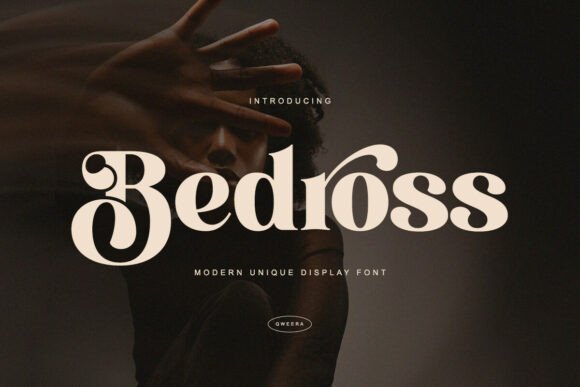
The Perfect Blend of Elegance and Edge: Unleashing the Power of Bedross Font
Remember that moment when you’re working on a design project, and you’re struggling to find the perfect font that captures the essence of your vision? You scroll through countless options, but nothing seems to stand out. Then, you stumble upon a font that makes your heart skip a beat – and that’s exactly what happens when you discover the Bedross Font.
This bold and artistic display font is more than just a pretty face; it’s a game-changer for designers who demand attention-grabbing typography. With its unique blend of modern sophistication and high-fashion flair, Bedross Font is perfect for editorials, brand identities, album covers, and luxury logos. Its versatility lies in its balance of classic serif roots and creative contemporary detailing, making it a valuable addition to any designer’s toolkit.
Whether you’re working on digital or print media, the Bedross Font is ready to elevate your designs with its striking, sculptural presence. With a full set of uppercase, lowercase, punctuation, and symbols, you’ll have everything you need to create stunning designs that leave a lasting impression.
Designer Review: Bedross Font
When I first laid eyes on the Bedross font, I was immediately drawn to its unique, elegant aesthetic ✨. The font’s intricate details and ornate flourishes evoke a sense of luxury and sophistication, making it perfect for high-end branding, fashion, and luxury goods.
- The Bedross font is incredibly versatile, suitable for both digital and print applications.
- It’s highly legible, even at smaller font sizes, making it perfect for body text.
- The font’s unique style allows it to stand out in a crowded market, making it an excellent choice for brands looking to establish a strong identity.
However, as with any font, there are some limitations to consider ⚠️:
- The Bedross font may not be suitable for everyday use, as its intricate details can be overwhelming in large quantities.
- The font’s ornate style can make it difficult to read at very small font sizes.
- Some users may find the font’s unique style too flashy or attention-seeking.
Overall, I think the Bedross font is a stunning addition to any designer’s toolkit. While it may not be suitable for every project, its unique style and versatility make it an excellent choice for high-end branding and luxury goods.
Tips for Getting the Most Out of the Bedross Font
Use the Bedross font to add a touch of elegance and sophistication to your designs.
Pair the font with bold colors and simple graphics for a striking visual effect.
Experiment with different font sizes and styles to create a unique look.
The Bedross font is ideal for:
High-end business cards and brochures.
Luxury product packaging and branding.